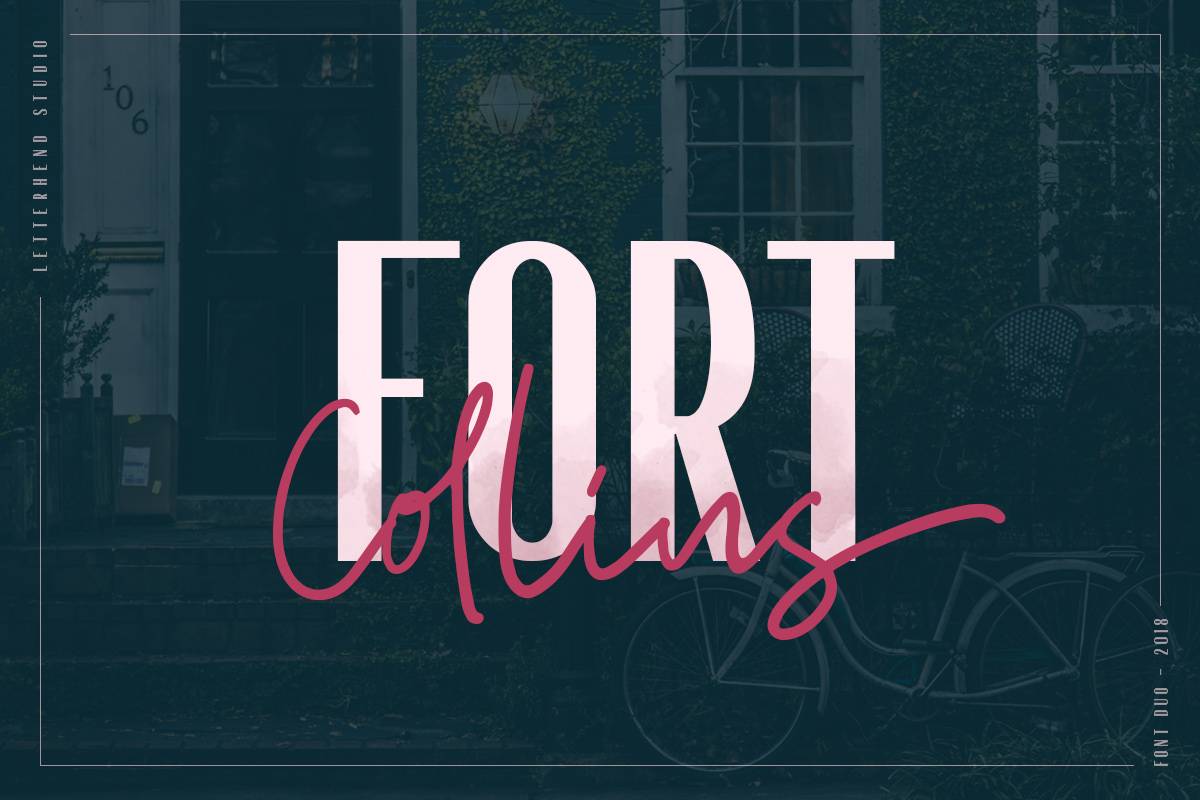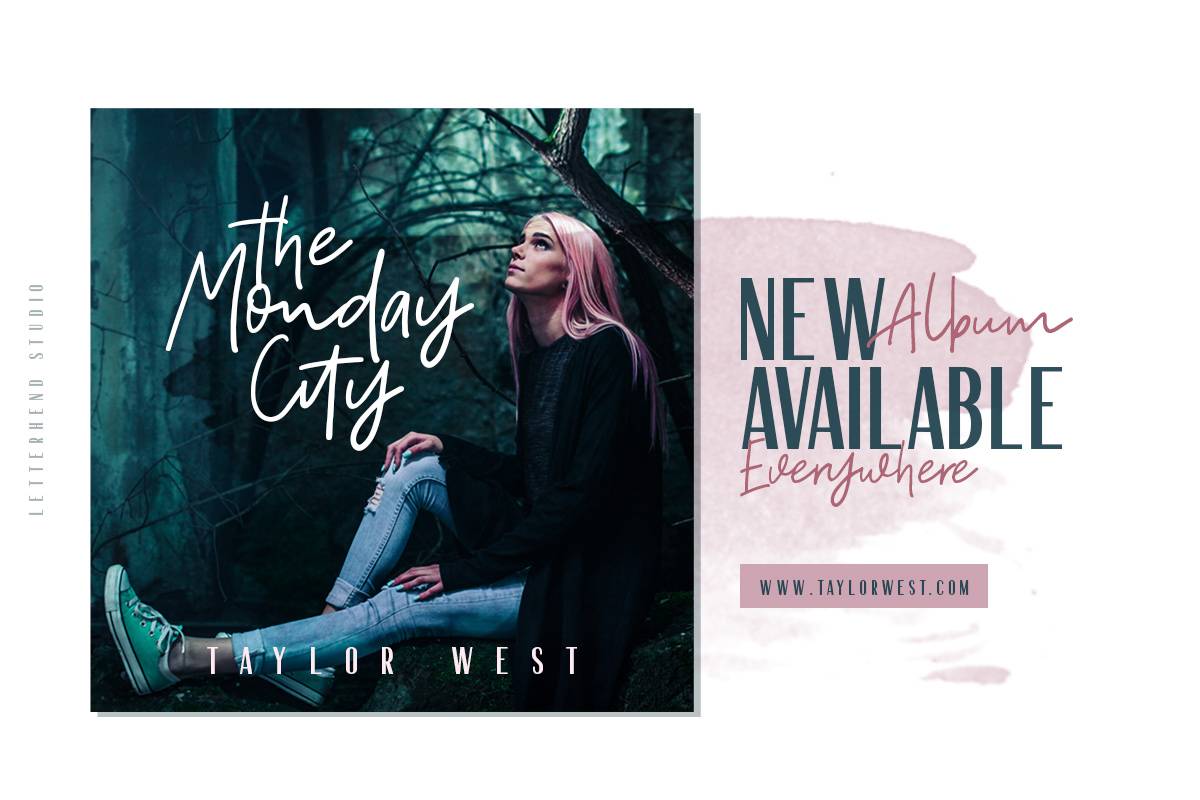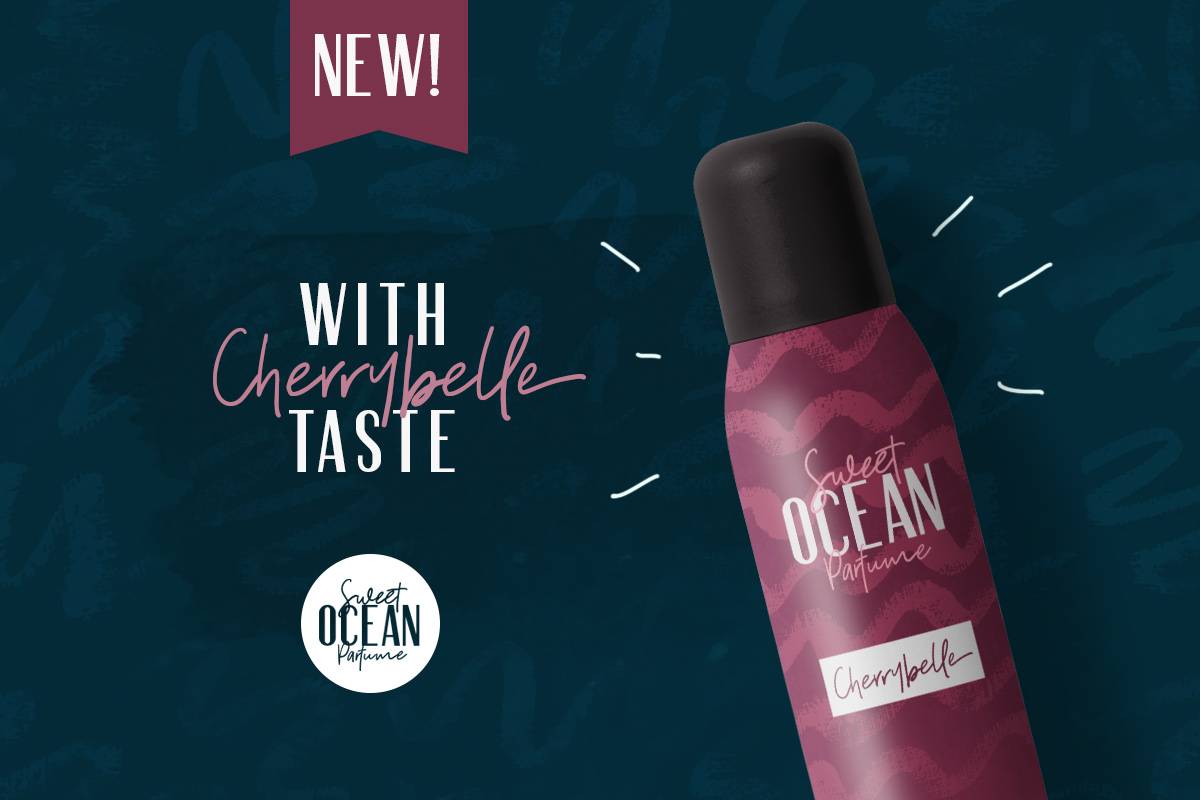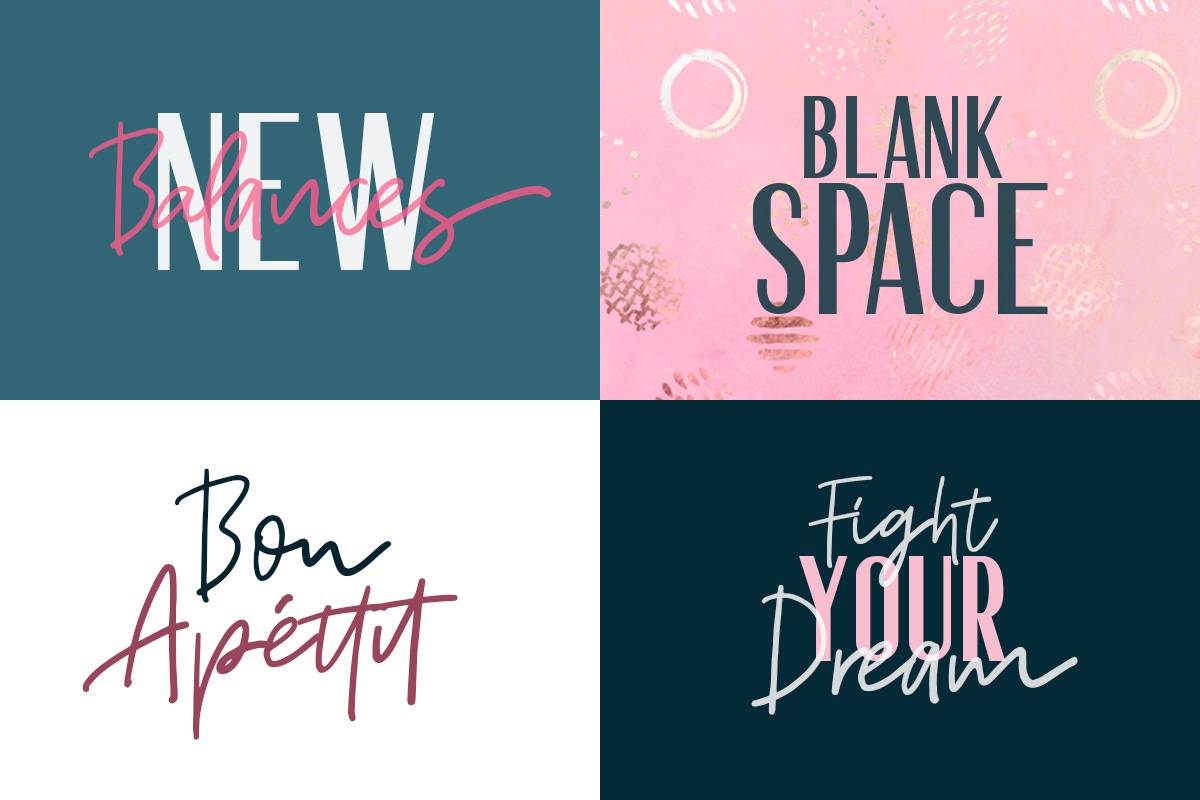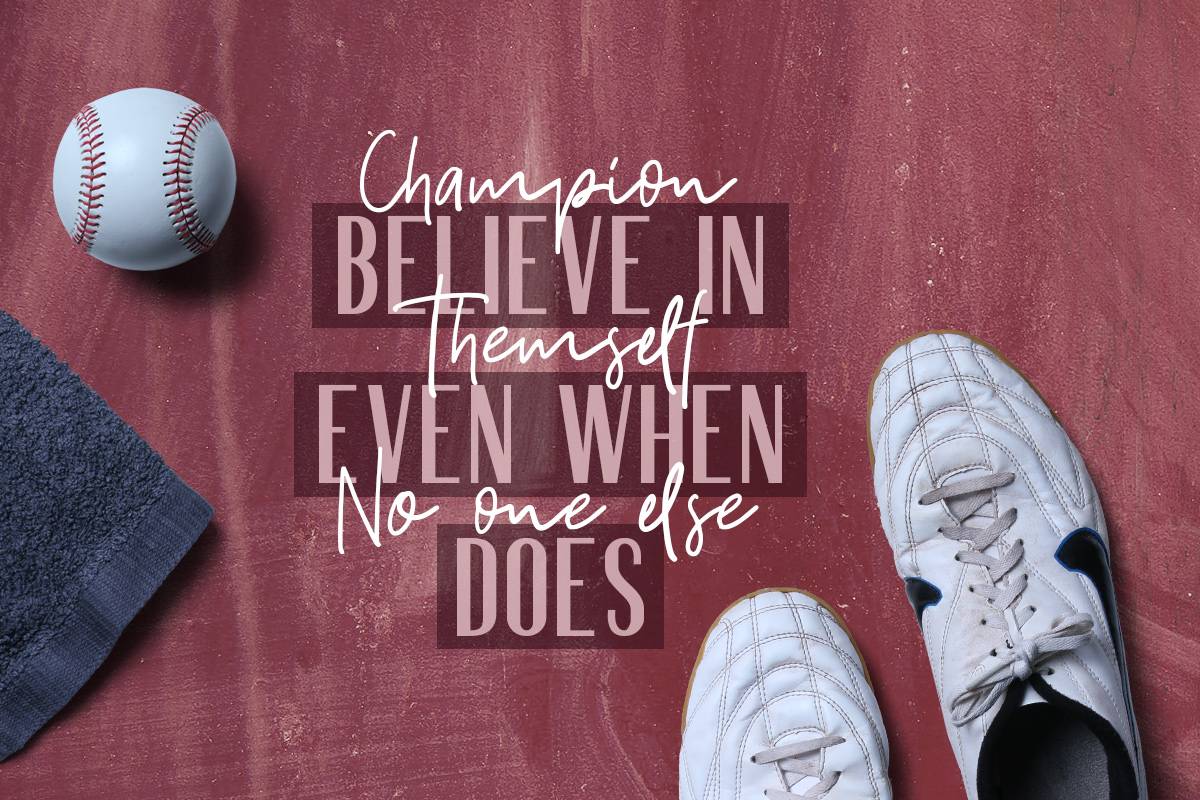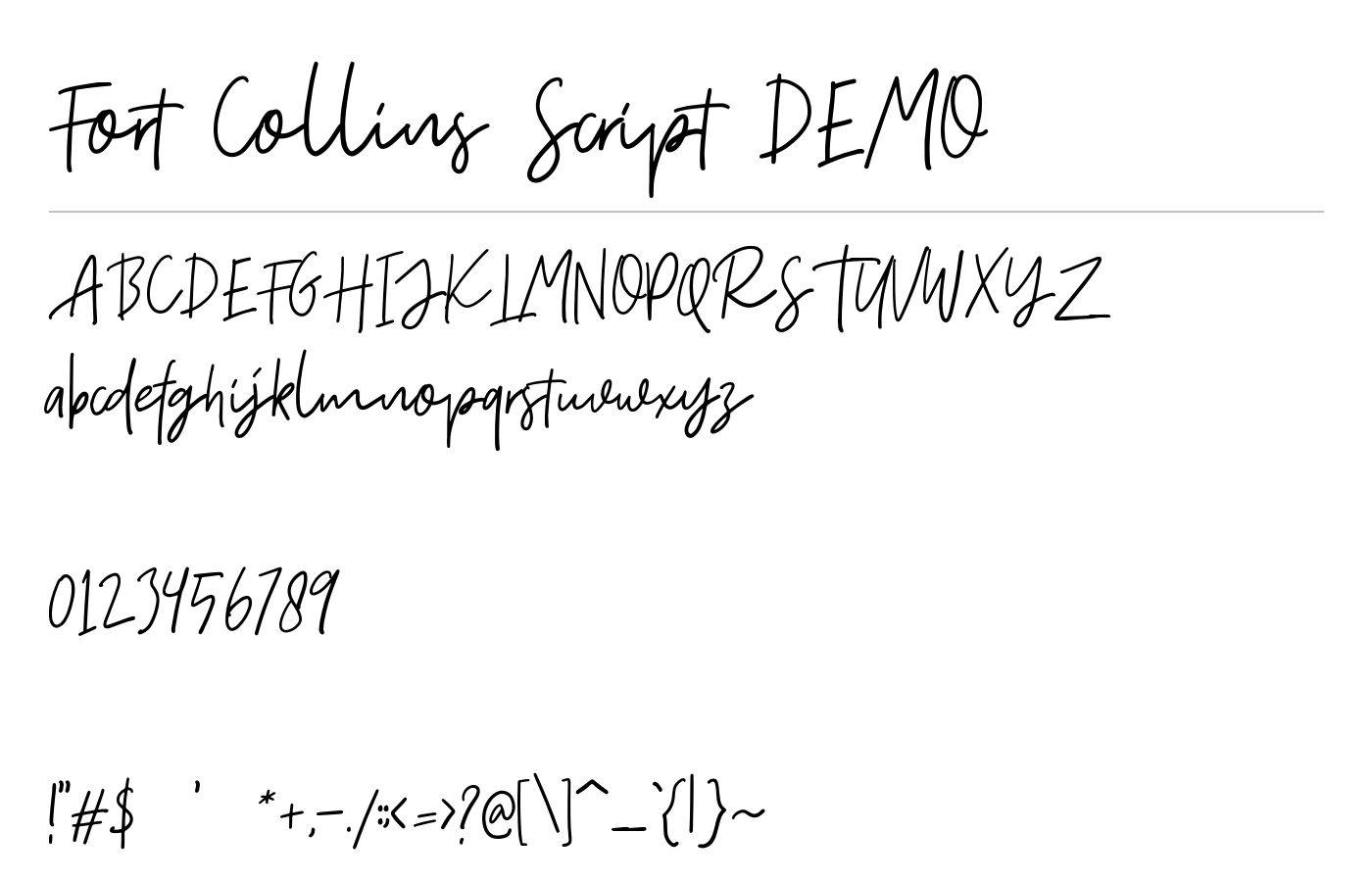
Fort Collins is a casual, handwritten script font featuring a light weight and tall, narrow letterforms that give it an airy, relaxed feel. Its playful and informal style makes it perfect for personal branding, creative projects, and lifestyle blogs where a friendly, approachable tone is desired. This font works well for headlines, invitations, and social media graphics that seek a natural, authentic look.
Fort Collins Font
About Fort Collins Font
| Font family | Fort Collins Font |